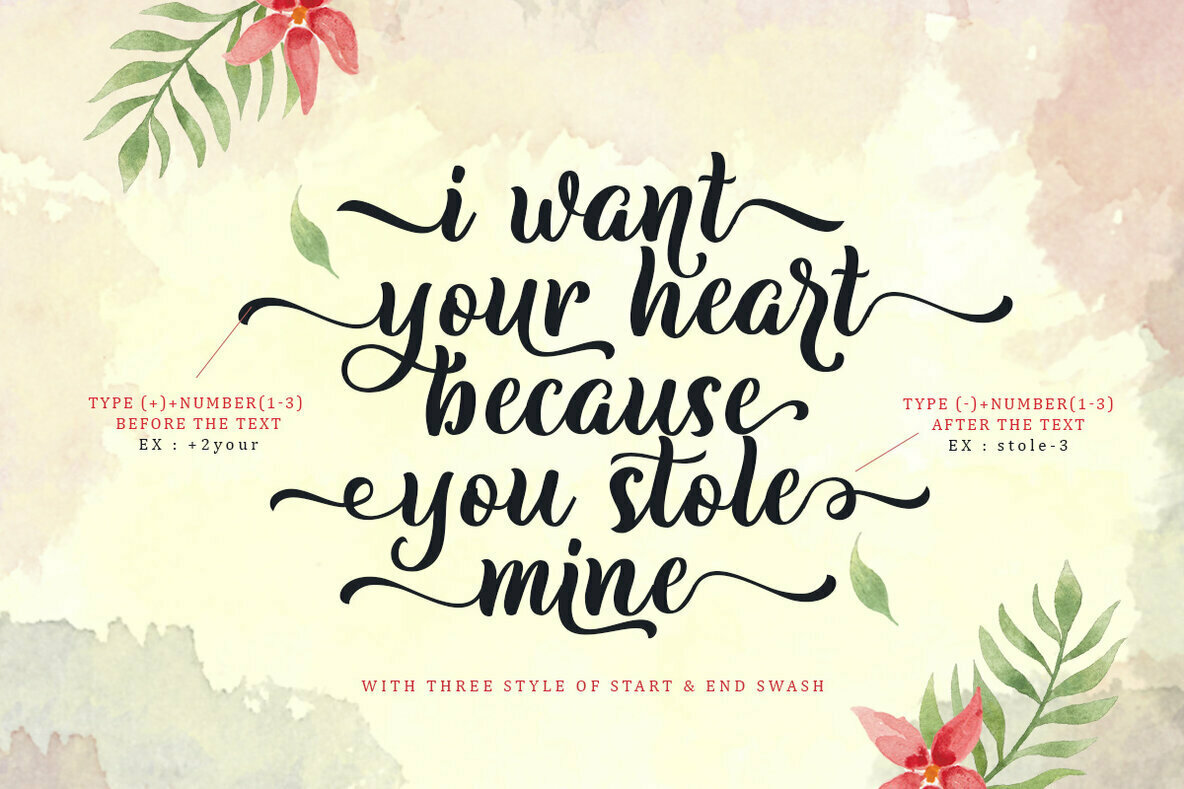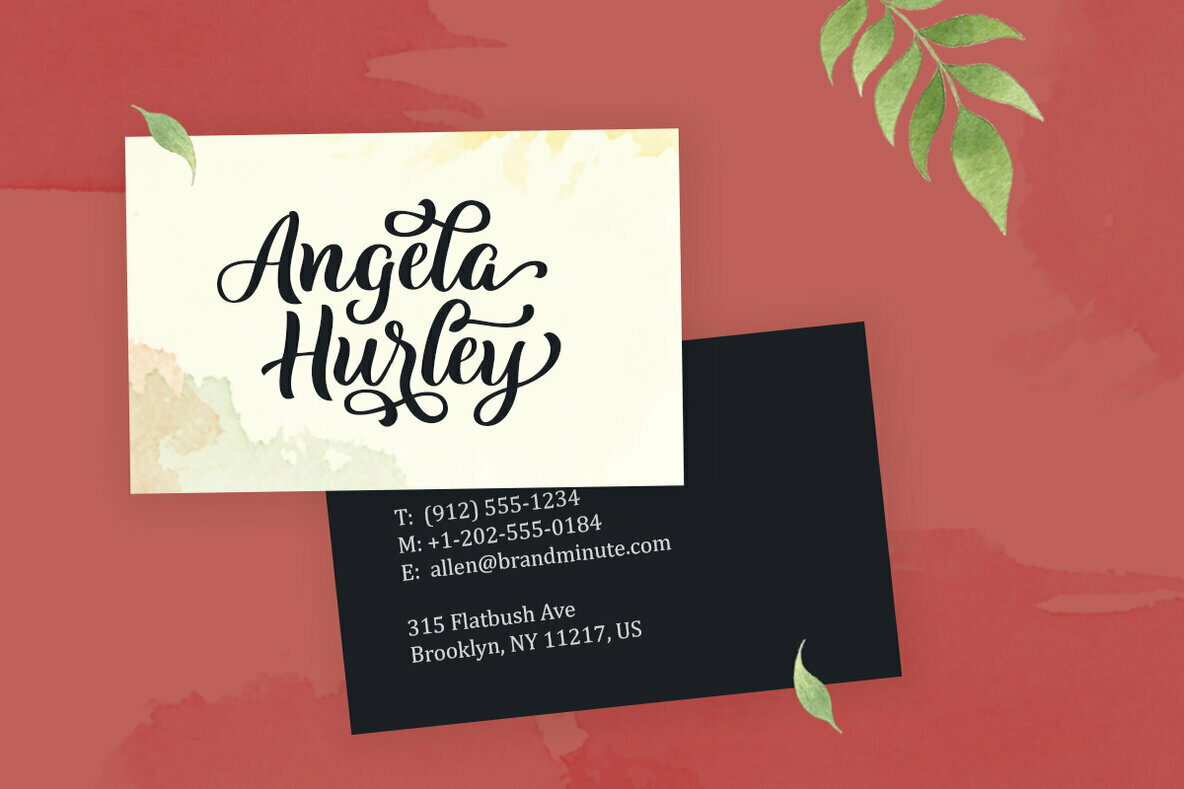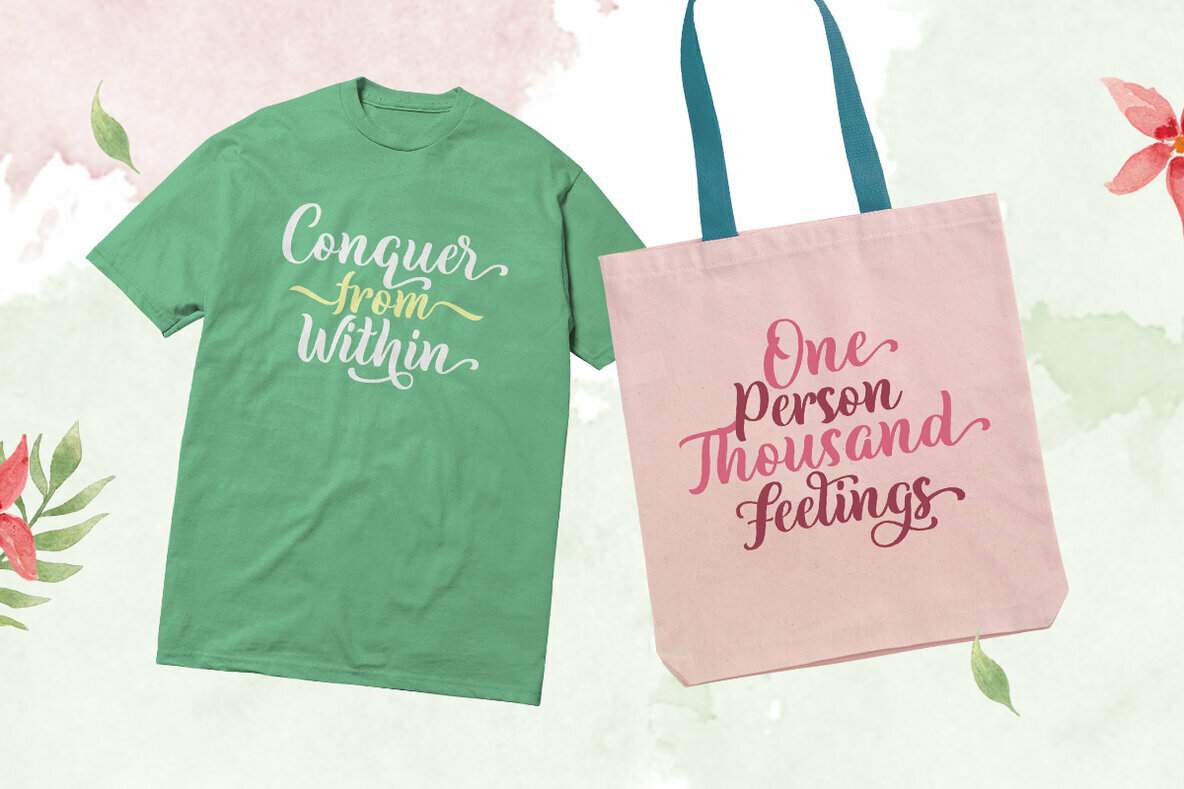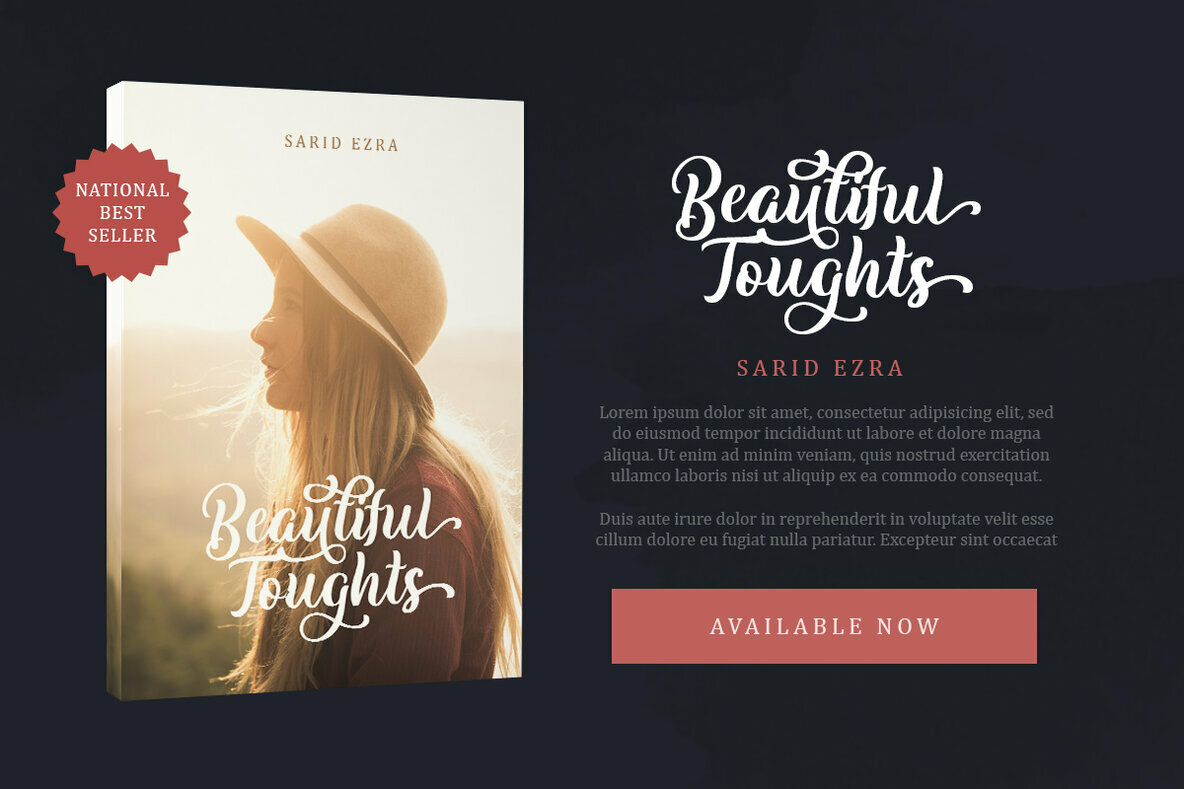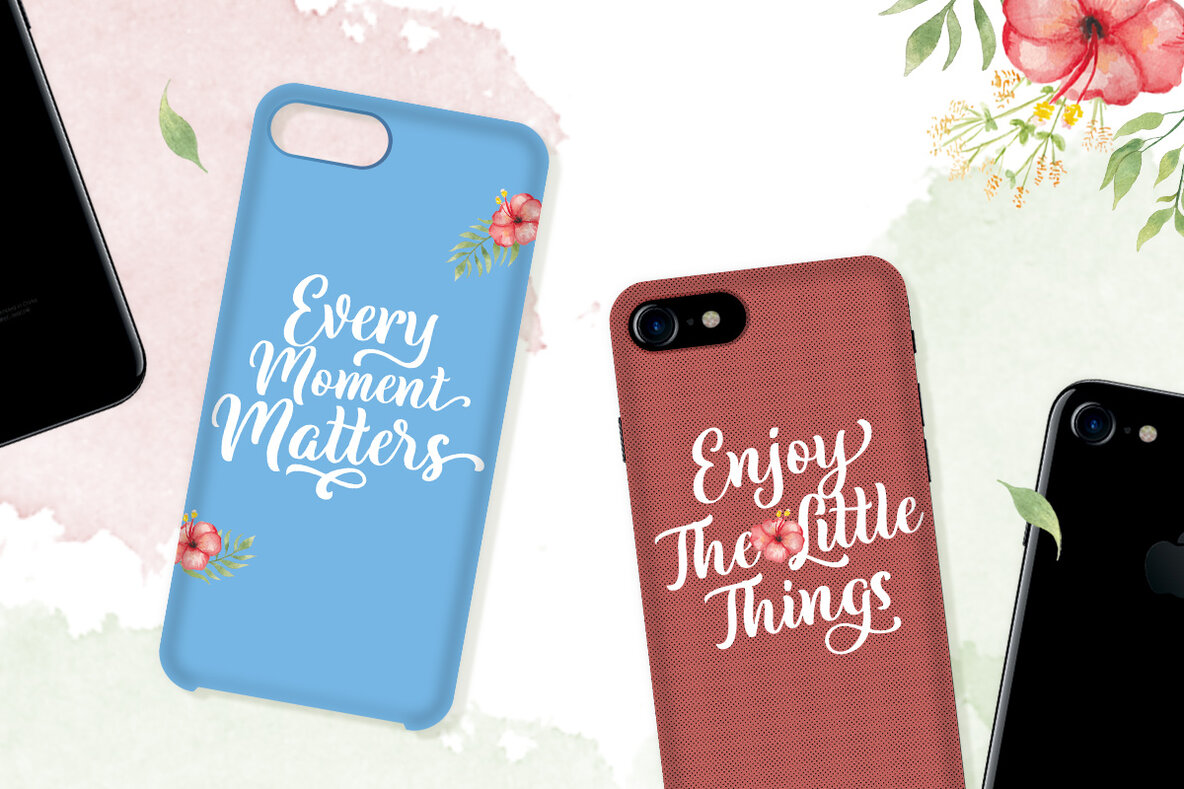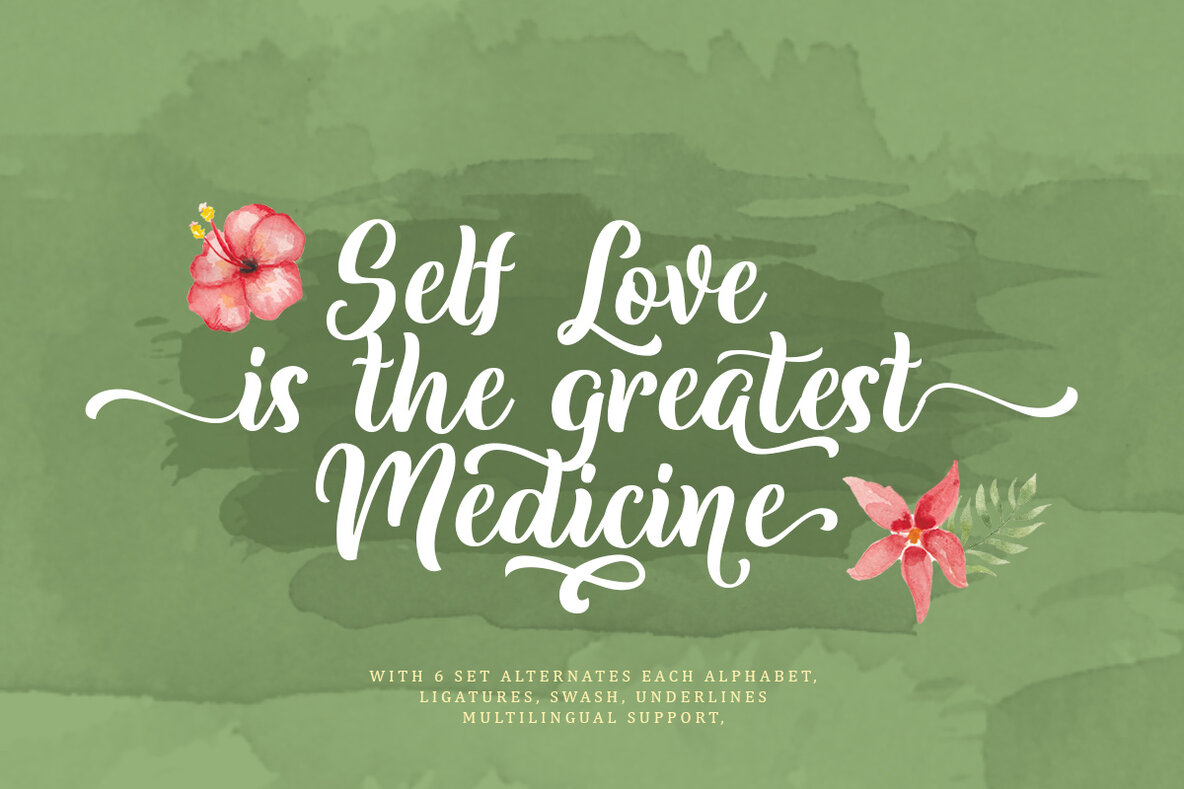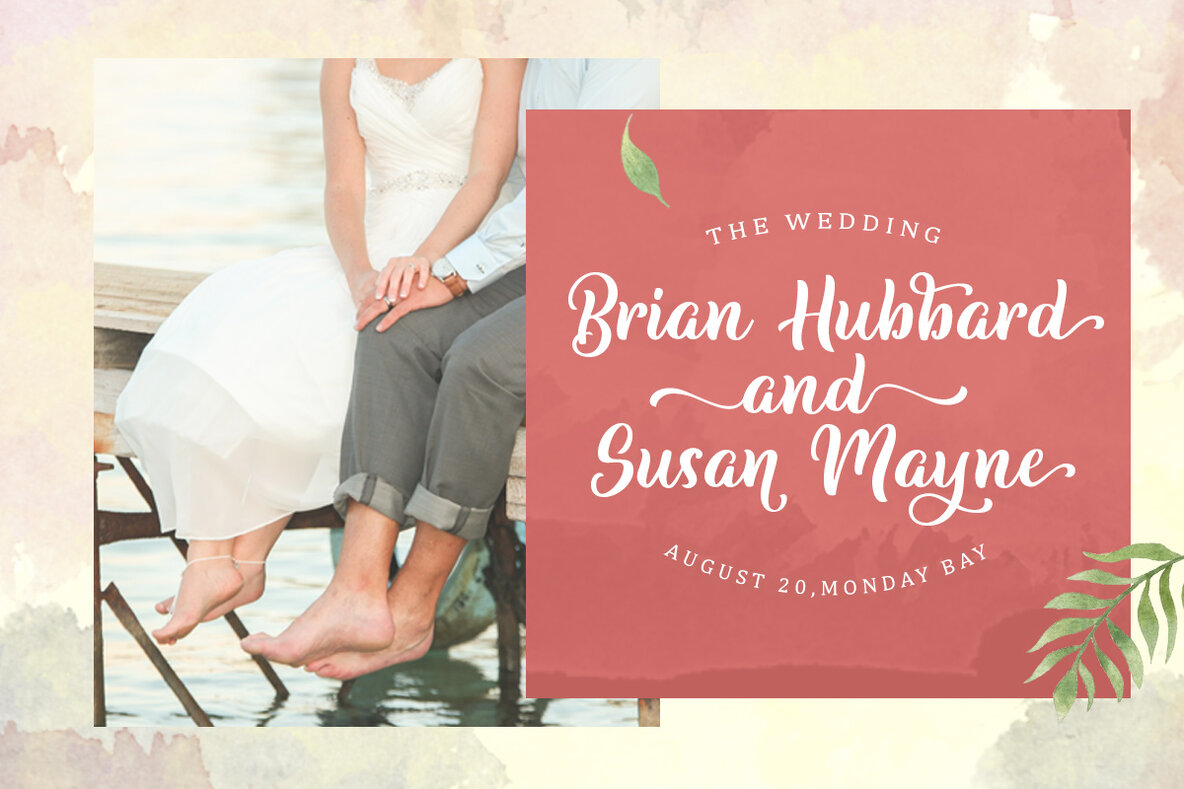
Bulgaria Script: A Romantic Script with Flair
Bulgaria Script by Letterhend Studio introduces an alluring blend of romance and playfulness. This modern script font captures the essence of natural handwriting, making it a compelling choice for headlines, branding, and more.
Its versatility extends across an array of applications, from apparel and logo design to invitations and advertising. Each character, be it uppercase or lowercase, punctuations or numerals, exudes craftsmanship.
• Includes uppercase and lowercase letters, along with punctuations, symbols, and numerals
• Offers stylistic set alternates and ligatures for enhanced creativity
• Supports multilingual characters